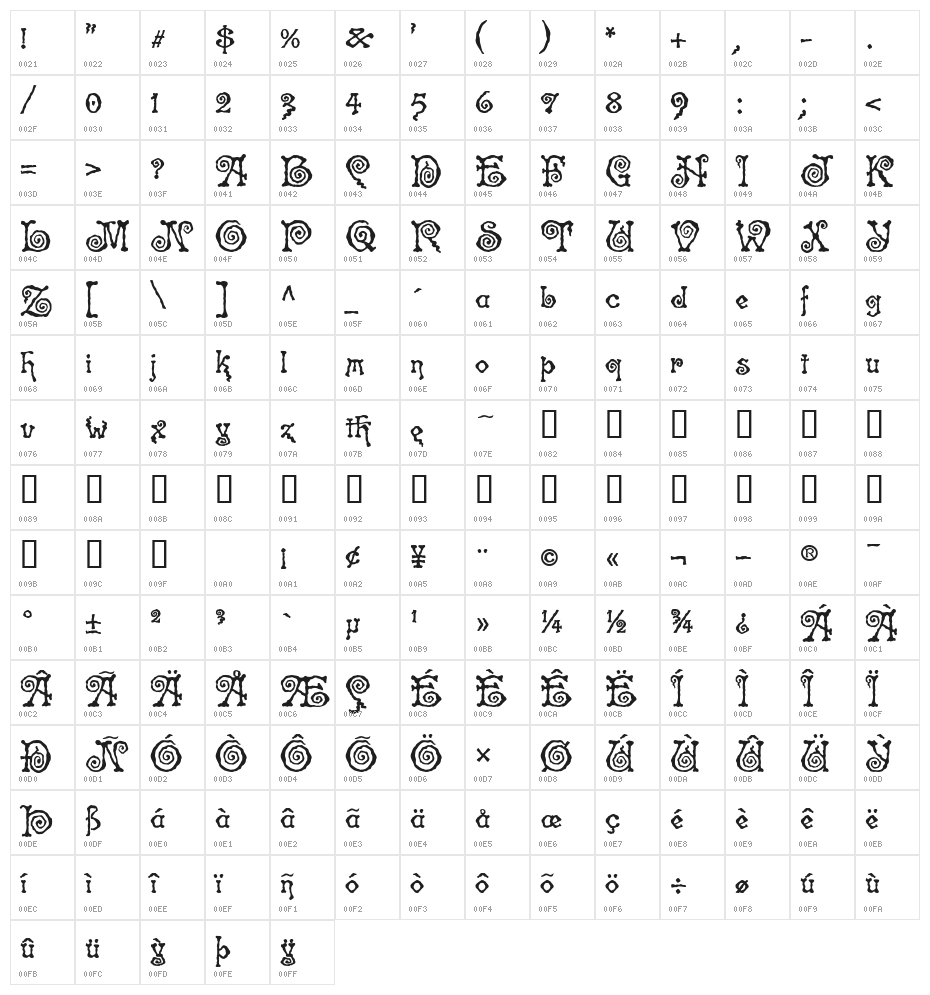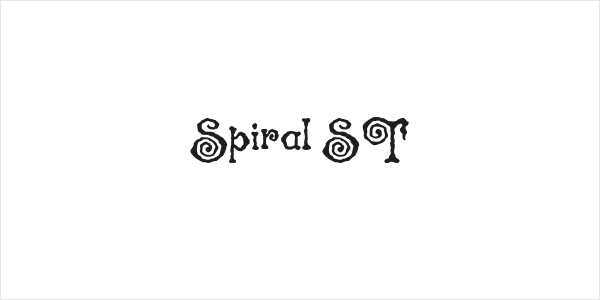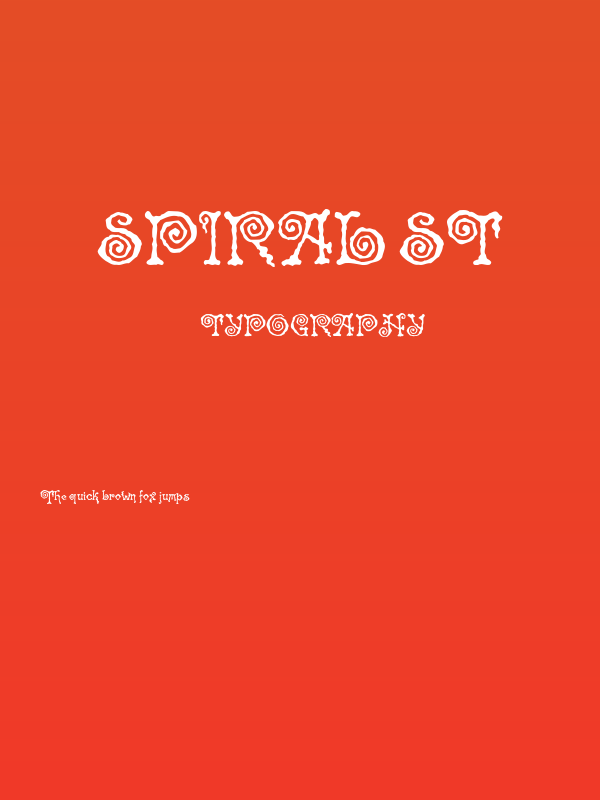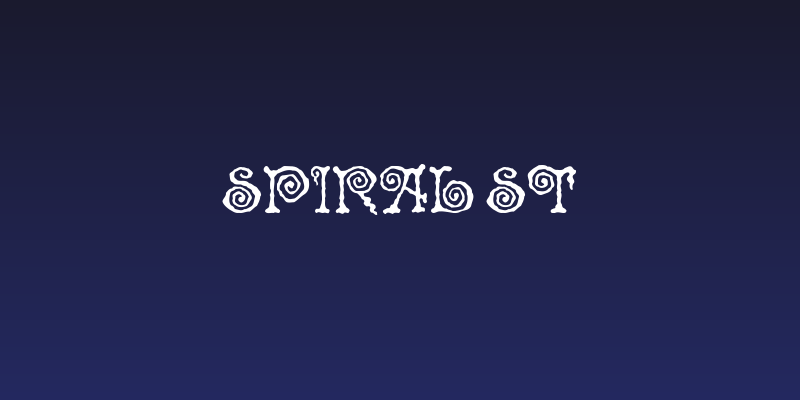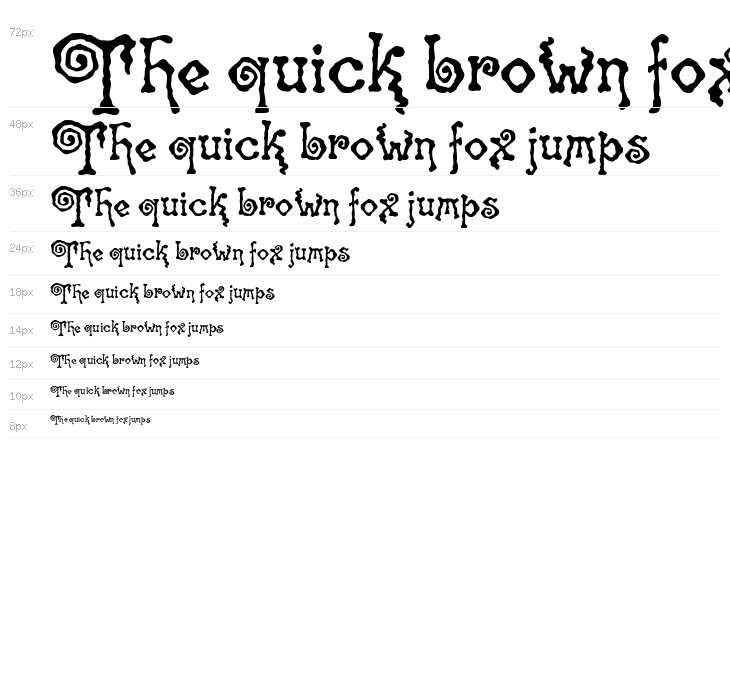
Spiral ST Font
Spiral ST Description
This font features a highly decorative and whimsical style, characterized by its playful and intricate spiral patterns integrated into each letter. The bold and irregular strokes give it a dynamic and energetic appearance, making it stand out with its unique artistic flair. The uppercase and lowercase letters maintain a consistent theme, with each character exhibiting a distinct spiral or curl, adding to its overall charm. The numbers and special characters follow the same design principles, ensuring a cohesive look throughout. This font's distinctive style makes it ideal for creative and unconventional projects.
| Proposed Projects | Ideal for Halloween-themed designs, children's book covers, fantasy game titles, or any project requiring a playful and eye-catching typeface. |